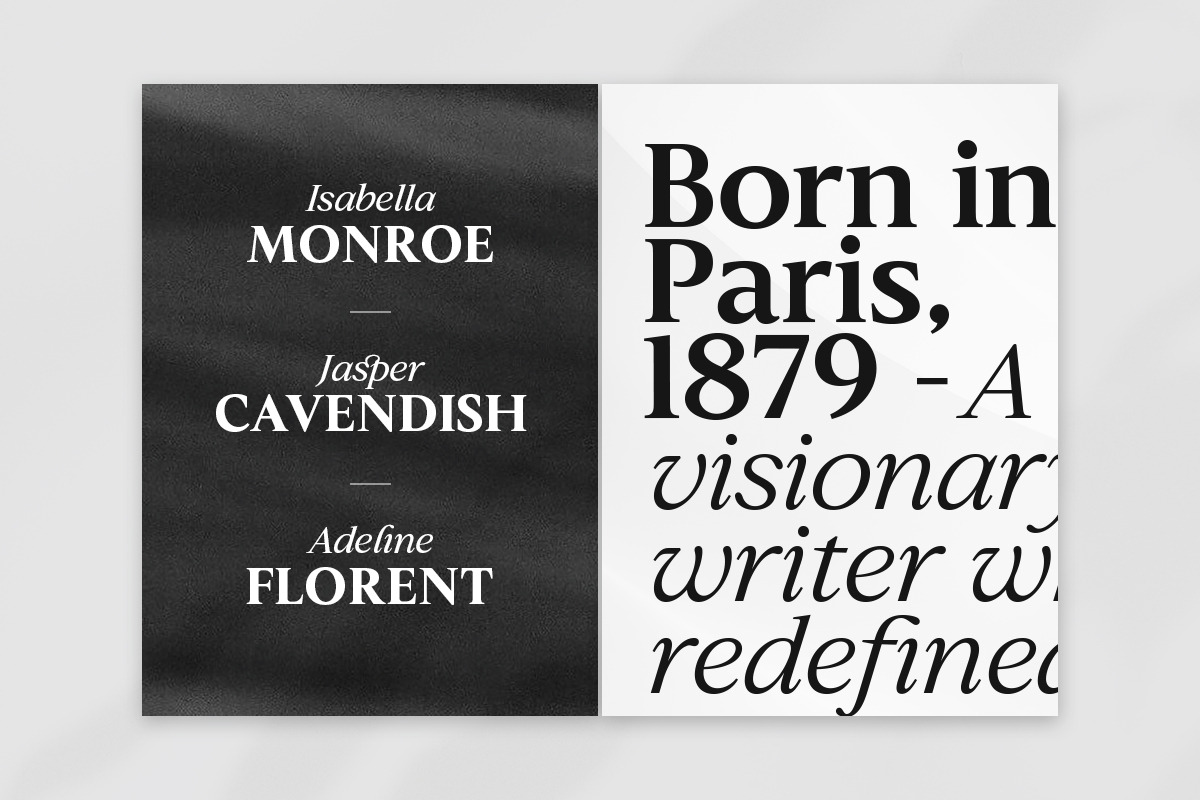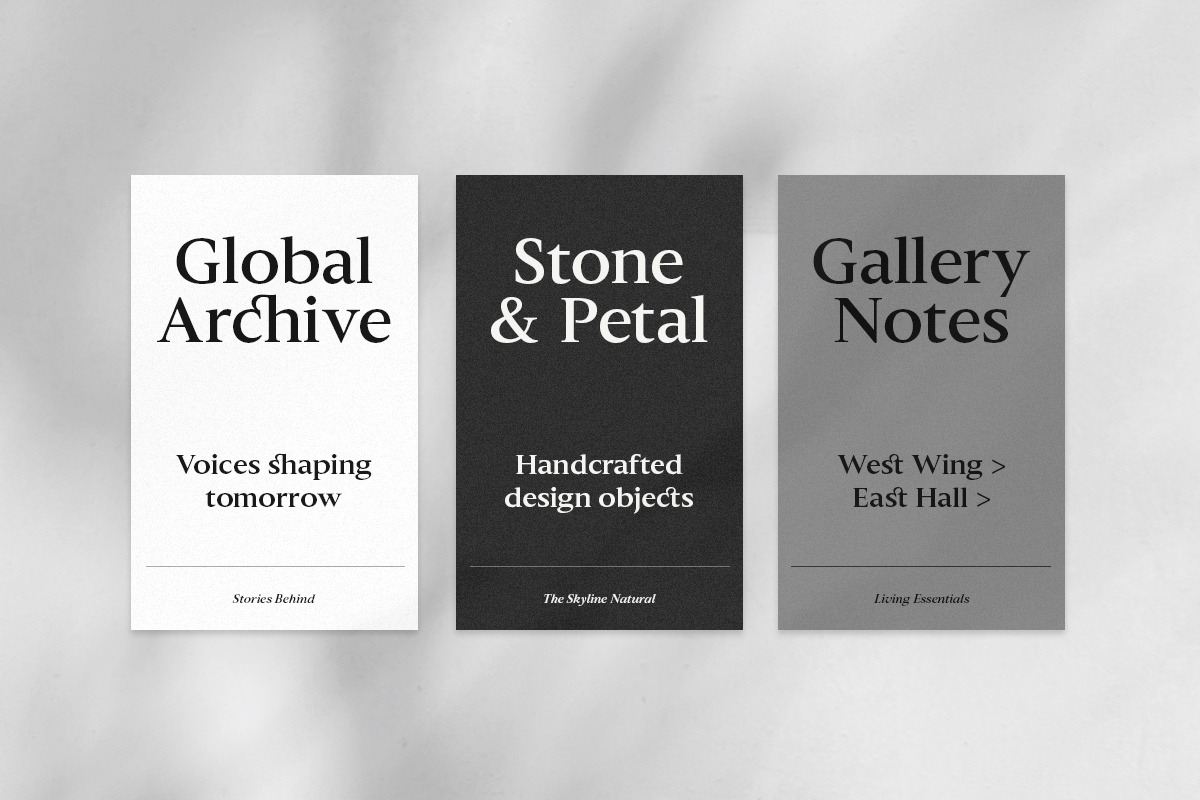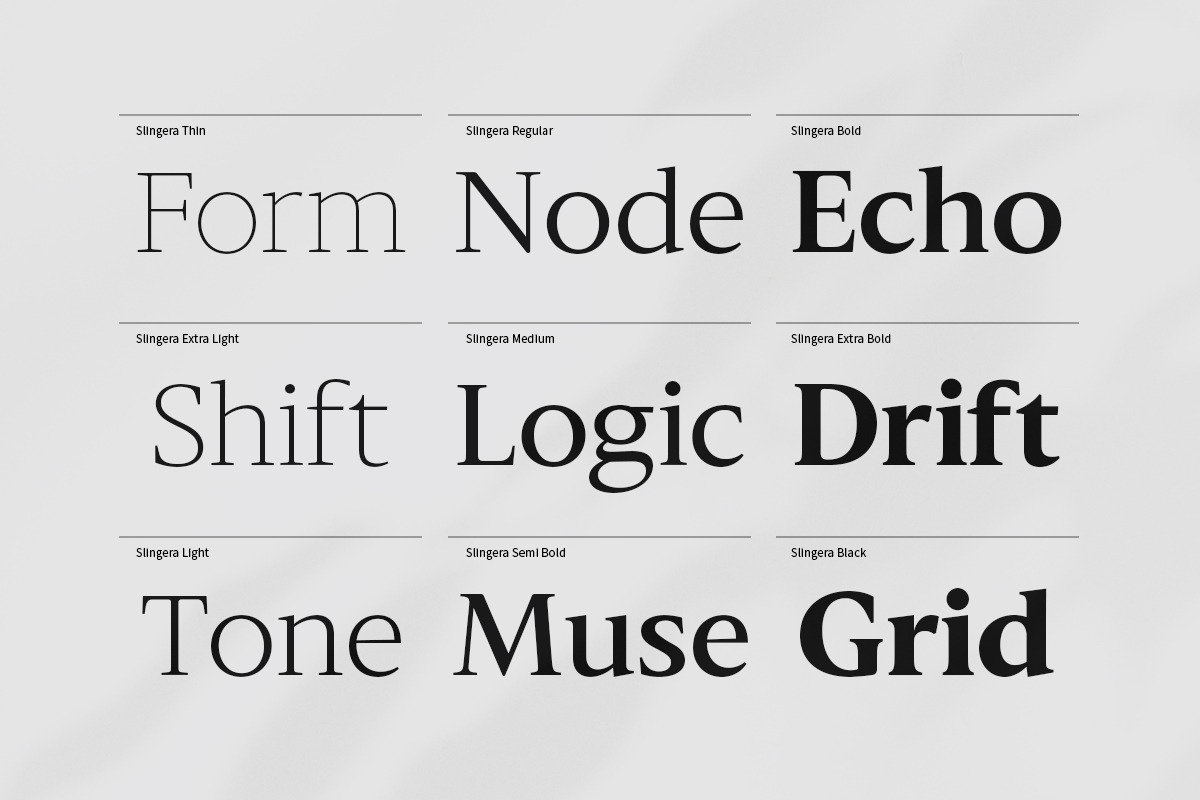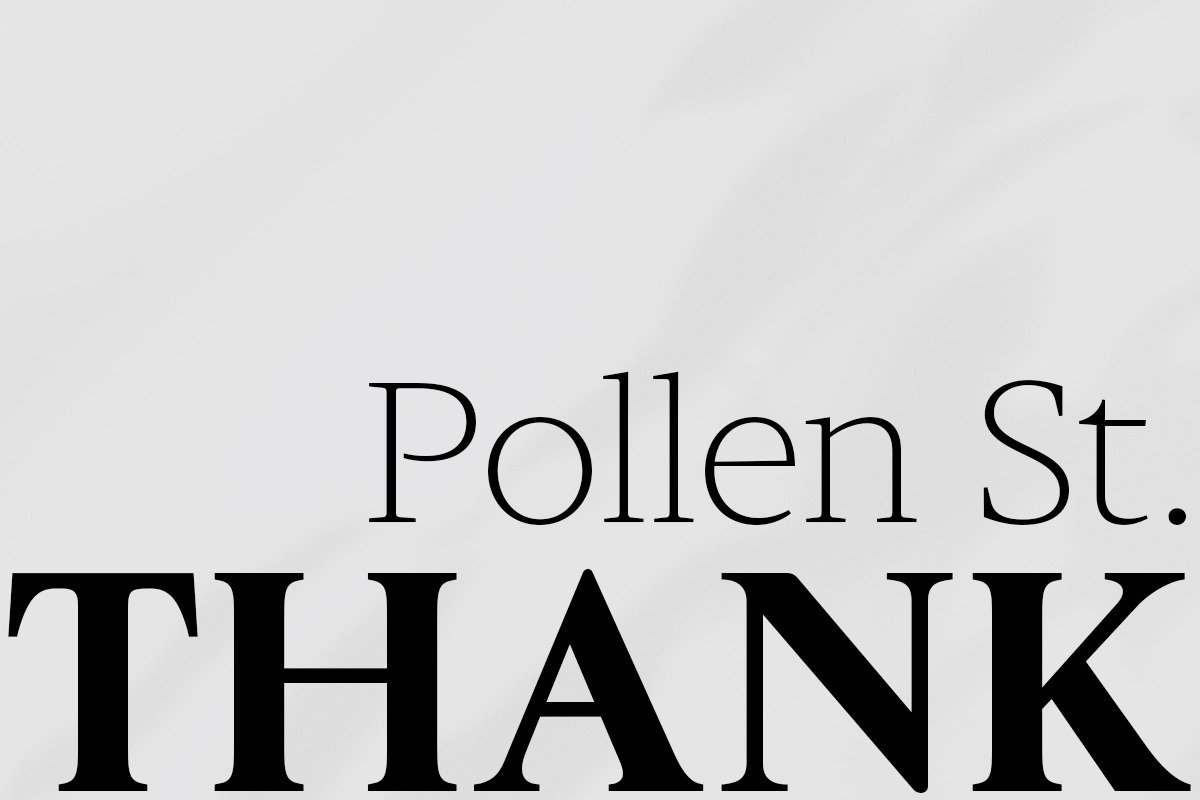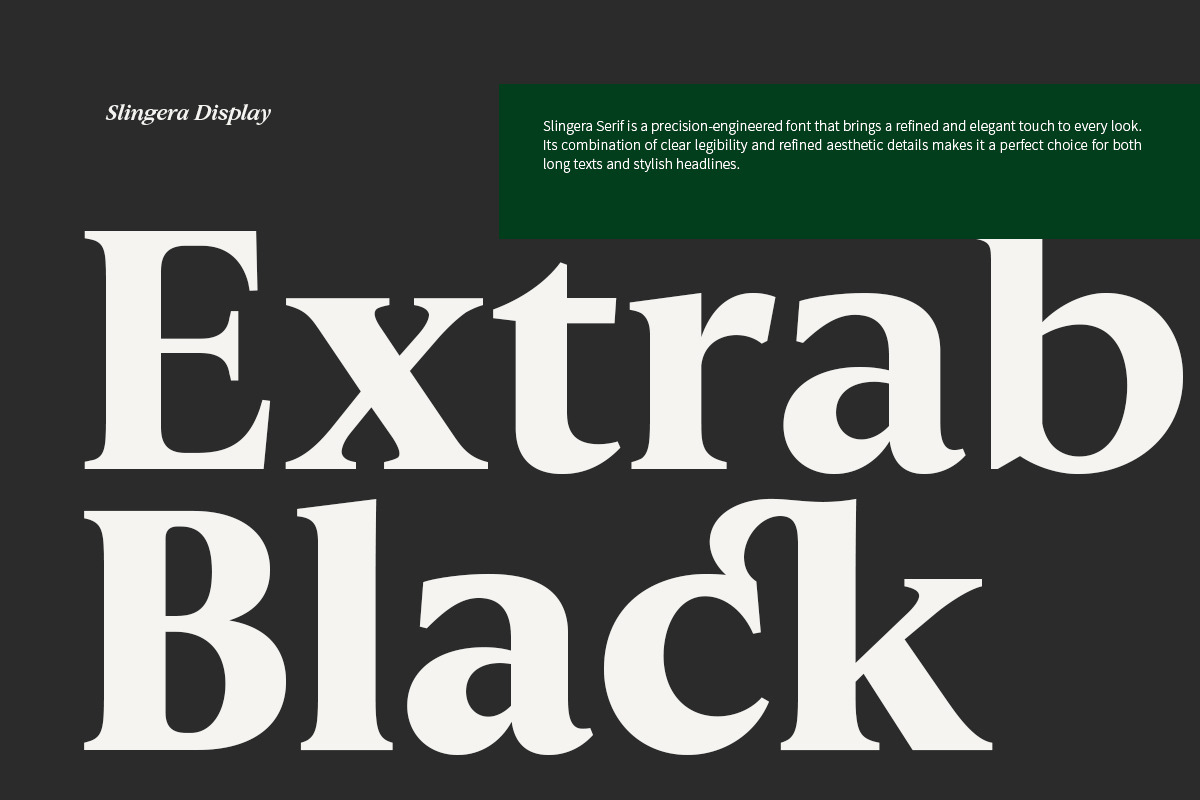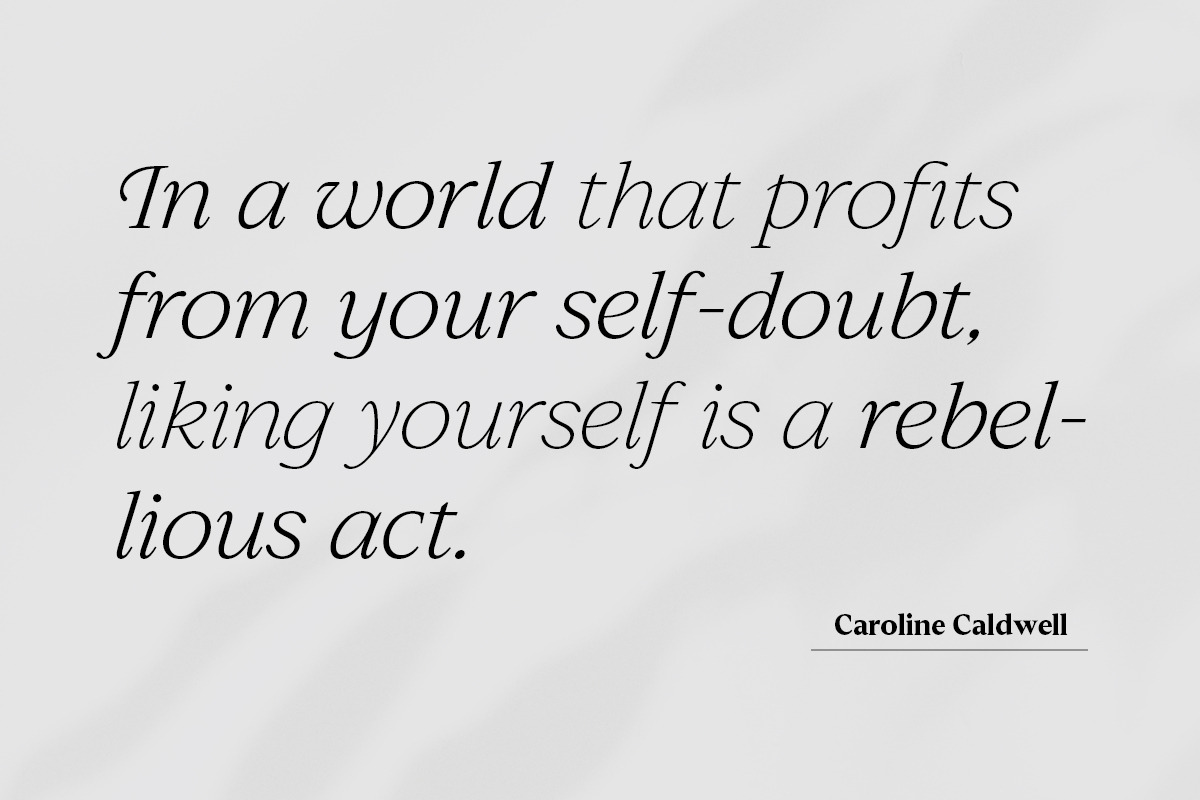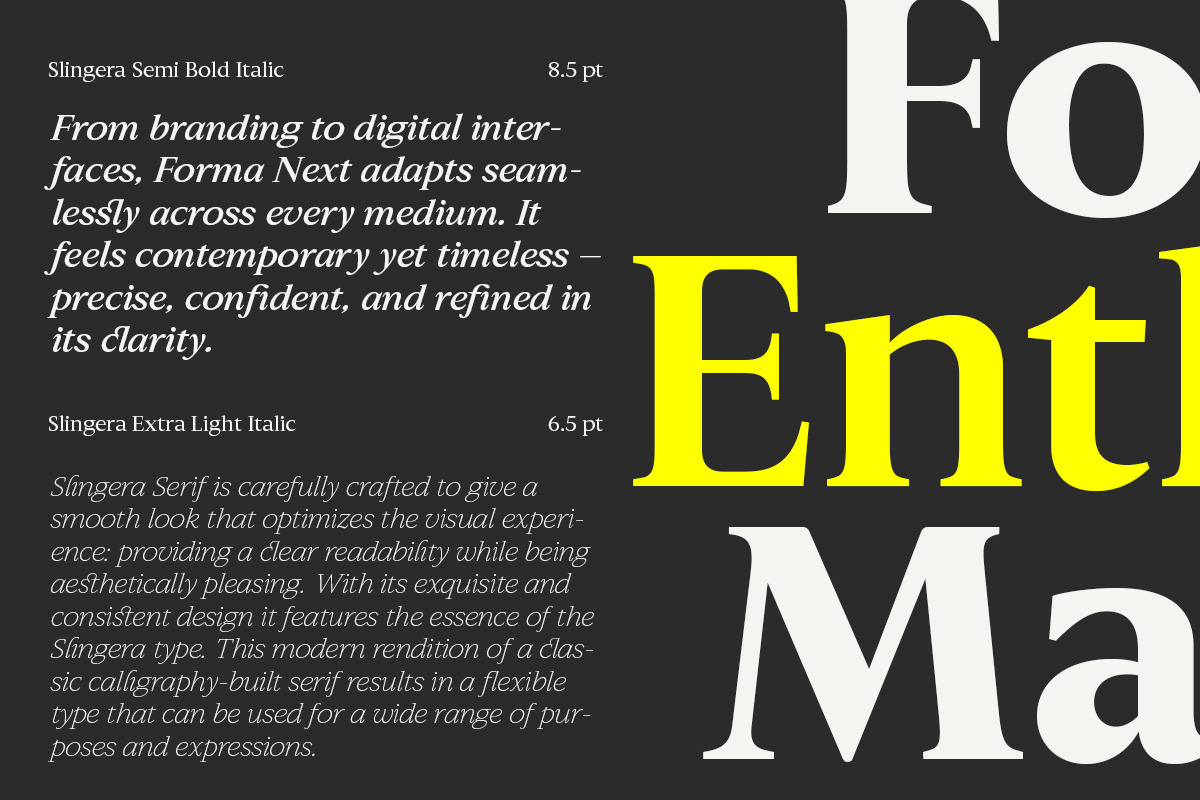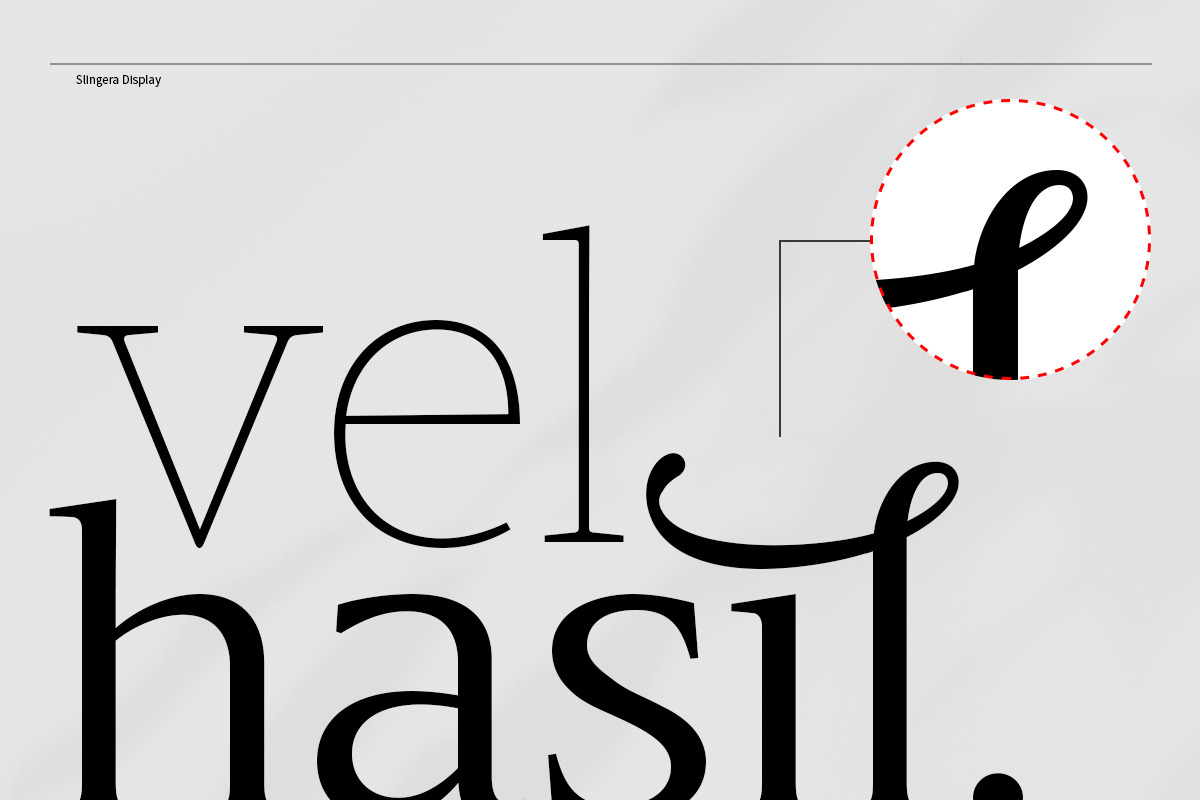
Slingera - Display Serif
Slingera is a modern serif typeface with a touch of classic elegance, carefully crafted to deliver a smooth and sophisticated appearance. Each curve and detail is designed with balance — combining calligraphic artistry with optimal readability. Slingera brings a timeless yet contemporary feel, perfect for designers who value refined aesthetics and versatility.
Available as a Variable Font in Regular and Italic styles, Slingera allows you to explore flexible design expressions — from elegant editorials to high-end branding.
- Stylish alternates and ligatures
- Excellent readability for both display and text